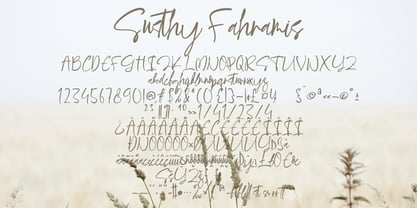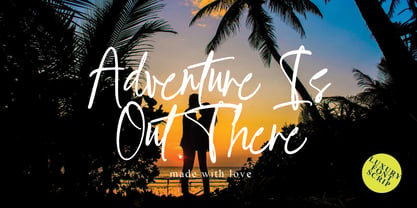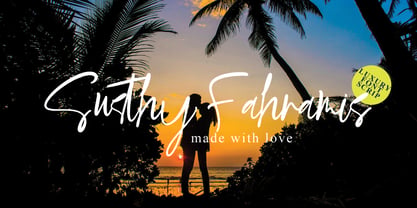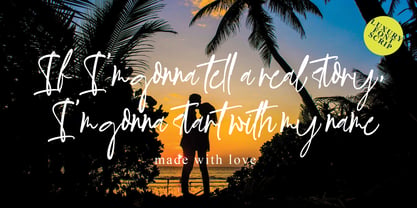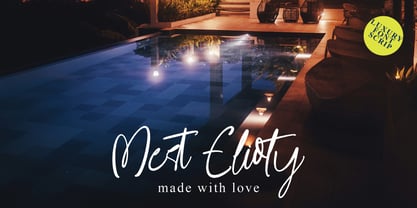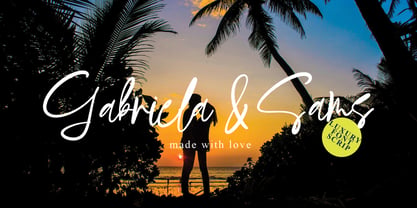
Susthy Fahramis
von Pineungtype misinklab
Die Schriftfamilie Susthy Fahramis wurde von Beni Saswita entworfen und von Pineungtype misinklab veröffentlicht. Susthy Fahramis enthält 1 Stile.
Introducing Susthy Fahramis - the nexus of modern elegance and delicate allure encapsulated within a handwritten font. This masterpiece radiates refinement and opulence, imbuing your designs with a seamless, tender touch. With its relaxed, sinuous style replete with a dash of funk, Susthy Fahramiscelebrates the genuine rhythm of natural brush lettering. Its understated texture, evocative of a brush's whispered touch, is the final captivating nuance of Susthy Fahramis. This makes it a flawless fit for audacious affirmations and unforgettable branding.